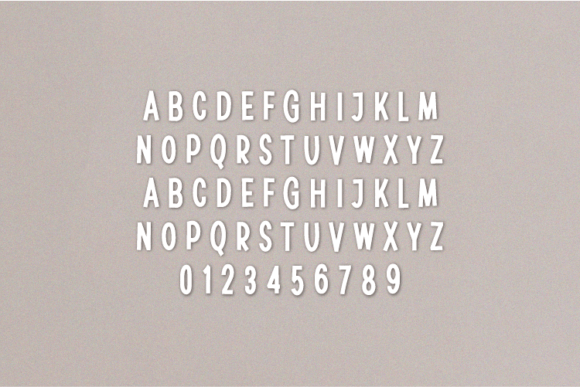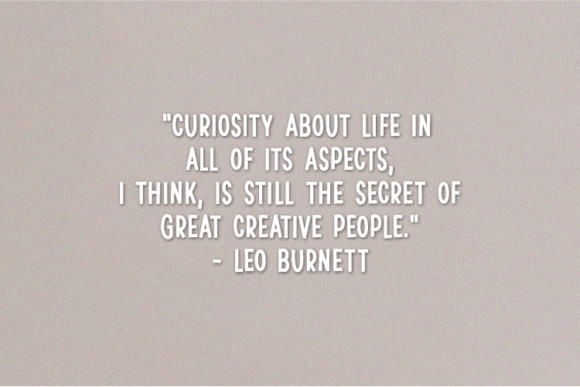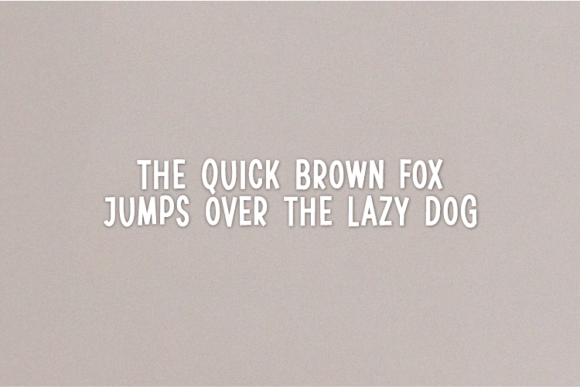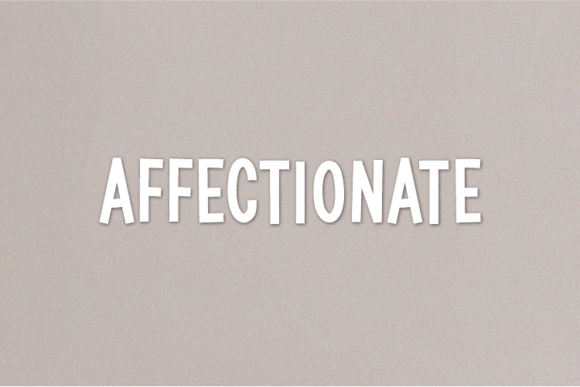
Affectionate Font: The Perfect Addition to Your Typography Collection
Are you tired of using the same old fonts in your creative projects? Look no further! Introducing Affectionate, an interesting and unique sans serif font that’s perfect for adding a touch of personality to your quotes, notes, T-shirts, and more. In this article, we’ll dive into the world of Affectionate Font, exploring its features, benefits, and uses, and why it’s a must-have for designers and crafters alike.
What is Affectionate Font?
Affectionate Font is a modern sans serif font that’s designed to convey a sense of warmth and friendliness. Its clean and simple lines make it highly legible, while its unique character set and stylish aesthetic set it apart from more traditional fonts. Whether you’re working on a graphic design project, crafting a handmade card, or creating a custom T-shirt, Affectionate Font is the perfect choice for adding a personal touch.
Key Features of Affectionate Font
- Unique and Modern Design: Affectionate Font boasts a fresh and contemporary design that’s sure to grab attention.
- Highly Legible: The font’s clean lines and simple shapes make it easy to read, even at small sizes.
- Versatile: Affectionate Font is perfect for a wide range of projects, from digital designs to print materials.
Benefits of Using Affectionate Font
So why choose Affectionate Font for your next project? Here are just a few benefits of using this amazing font:
- Adds Personality to Your Designs: Affectionate Font is the perfect way to add a touch of warmth and personality to your designs.
- Stand Out from the Crowd: With its unique design and stylish aesthetic, Affectionate Font is sure to help your designs stand out from the crowd.
- Perfect for Quotes and Notes: The font’s clean lines and simple shapes make it perfect for quotes, notes, and other text-based designs.
- Great for Crafters and Designers: Whether you’re a professional designer or a crafty hobbyist, Affectionate Font is a great addition to your font collection.
Uses for Affectionate Font
Affectionate Font is incredibly versatile, and can be used for a wide range of projects, including:
- Graphic Design: Use Affectionate Font to add a personal touch to your graphic designs, from brochures to business cards.
- Handmade Crafts: Add a touch of elegance to your handmade crafts, from cards to scrapbook pages.
- T-Shirts and Apparel: Create custom T-shirts and apparel with Affectionate Font for a unique and stylish look.
- Digital Designs: Use Affectionate Font to add a personal touch to your digital designs, from social media graphics to website headers.
In conclusion, Affectionate Font is a unique and versatile font that’s perfect for designers and crafters alike. With its modern design, highly legible characters, and stylish aesthetic, it’s the perfect addition to your font collection. Whether you’re working on a graphic design project, crafting a handmade card, or creating a custom T-shirt, Affectionate Font is sure to make your creative projects outstanding! So why wait? Add Affectionate Font to your collection today and start creating something amazing!